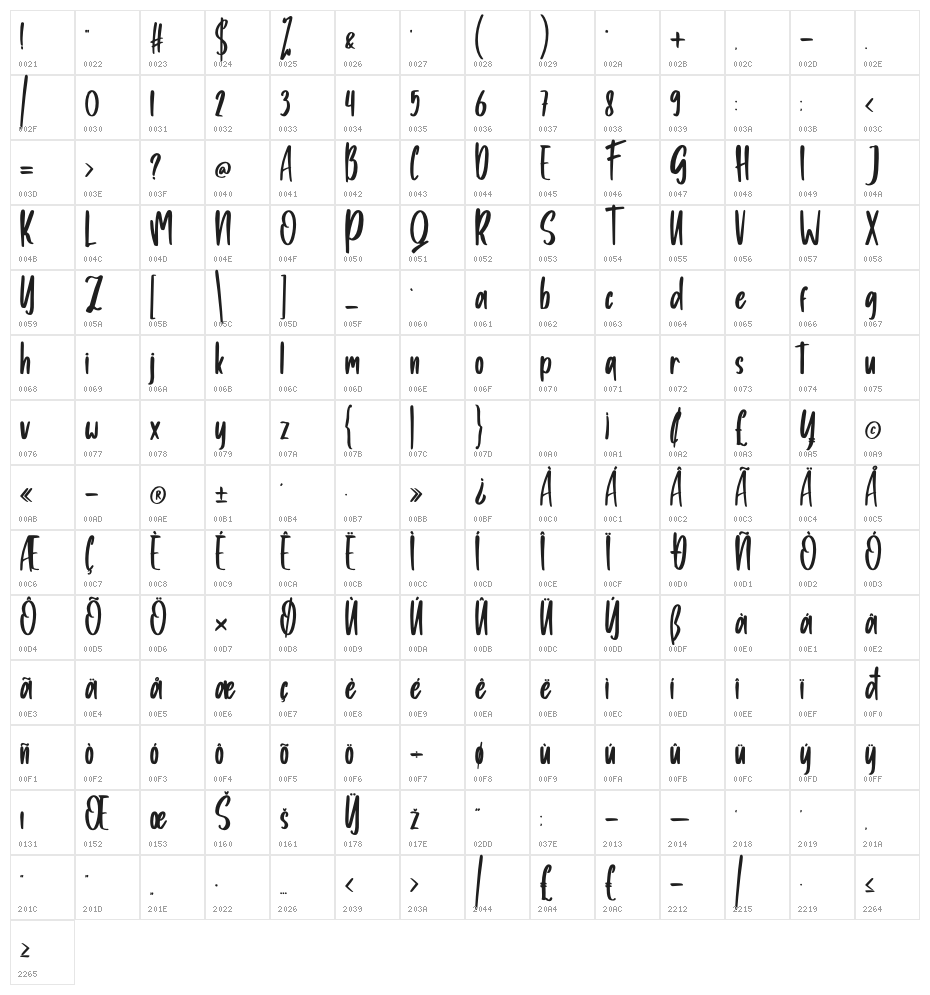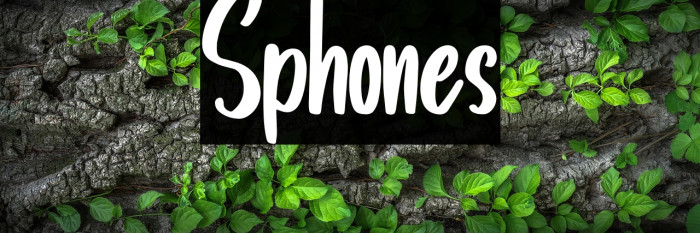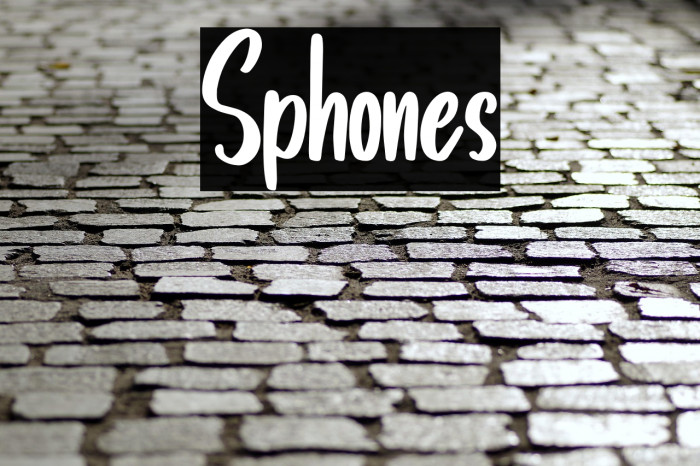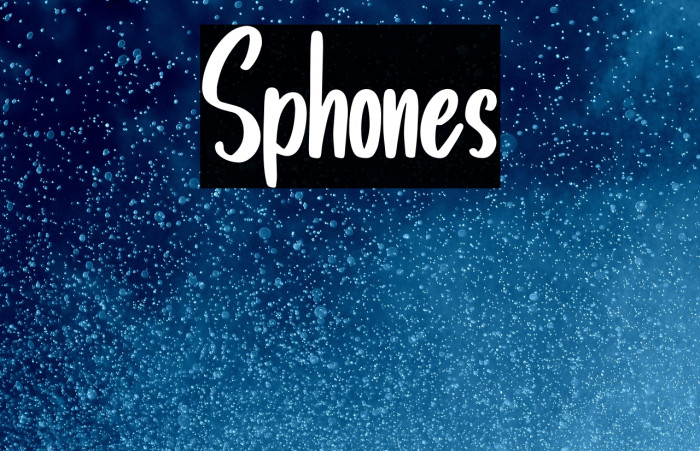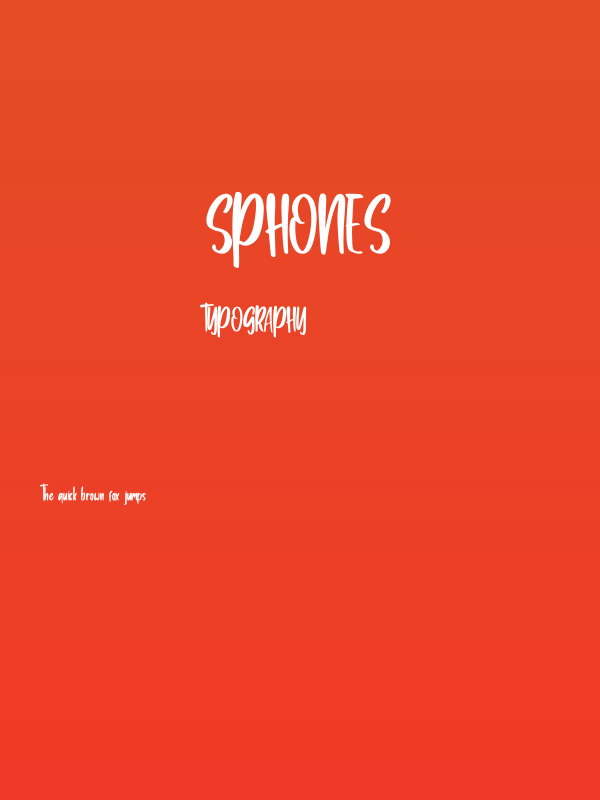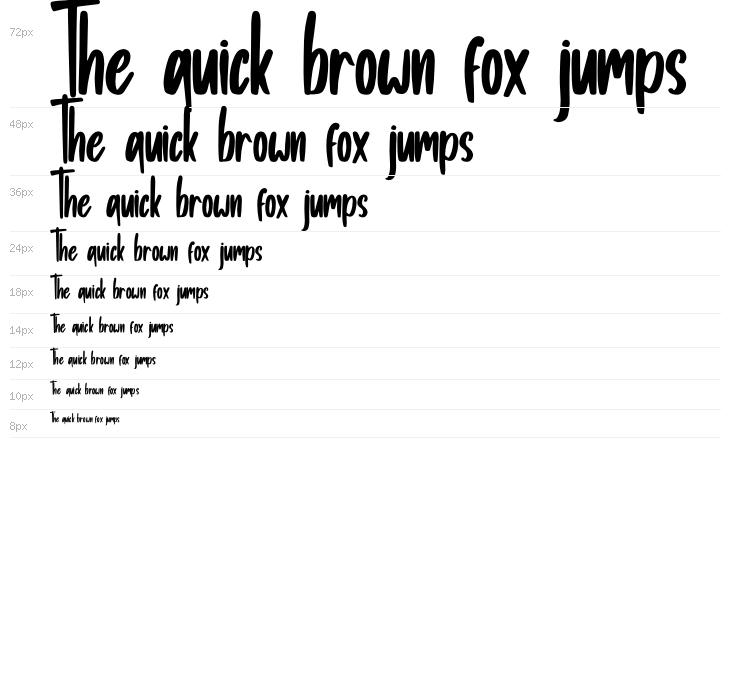
Sphones Font
Sphones Description
A bold, handwritten font with a playful and energetic style, featuring tall, narrow letters with varying stroke widths.
| Overall Style | Playful, Energetic |
| Proposed Projects | Greeting cards, posters, playful branding. |